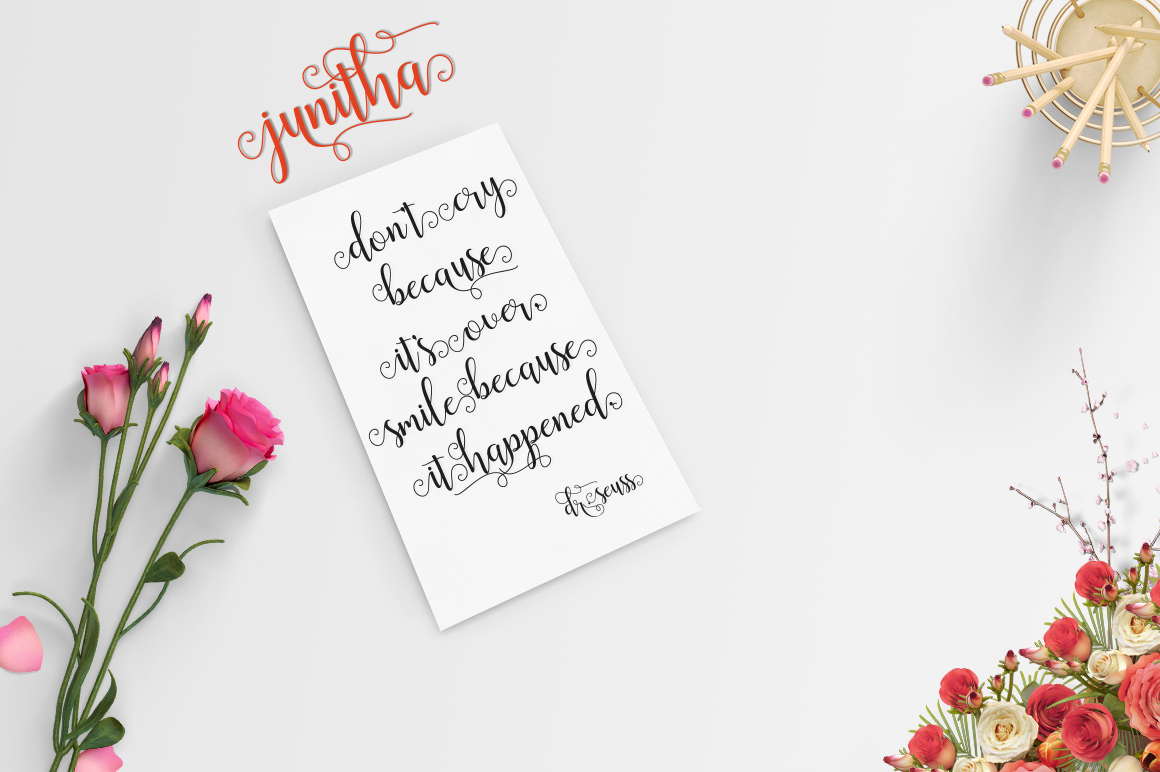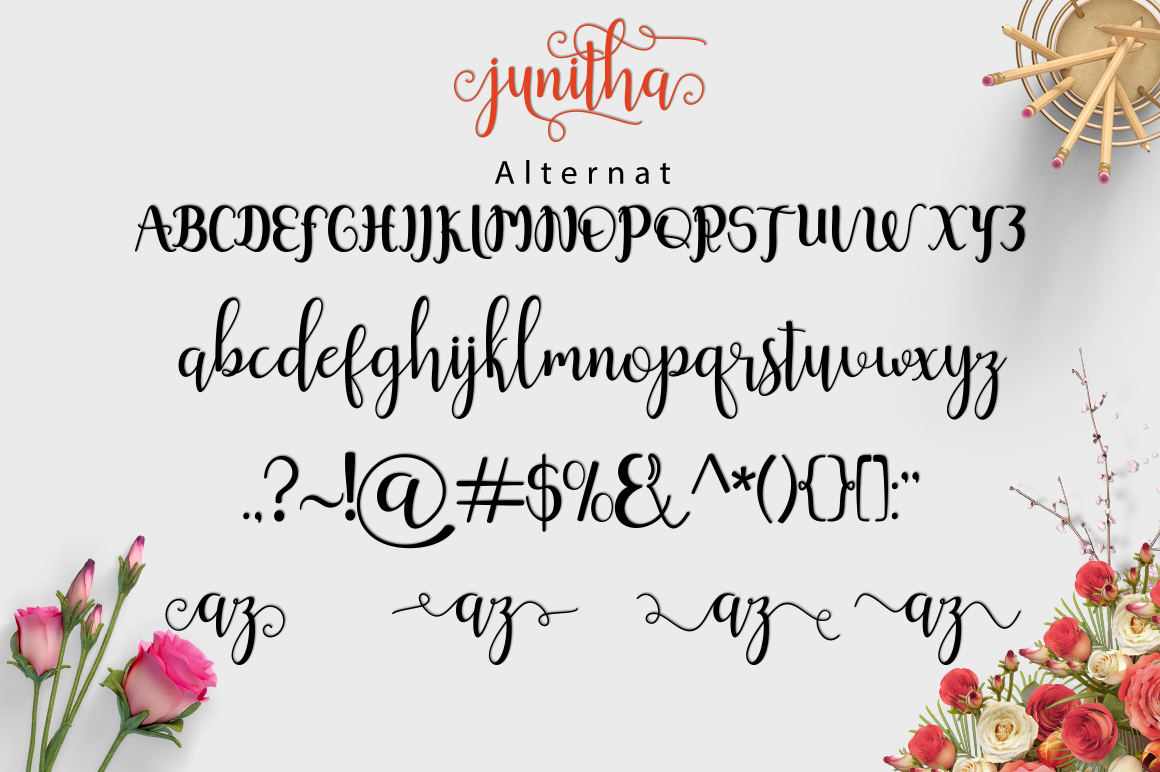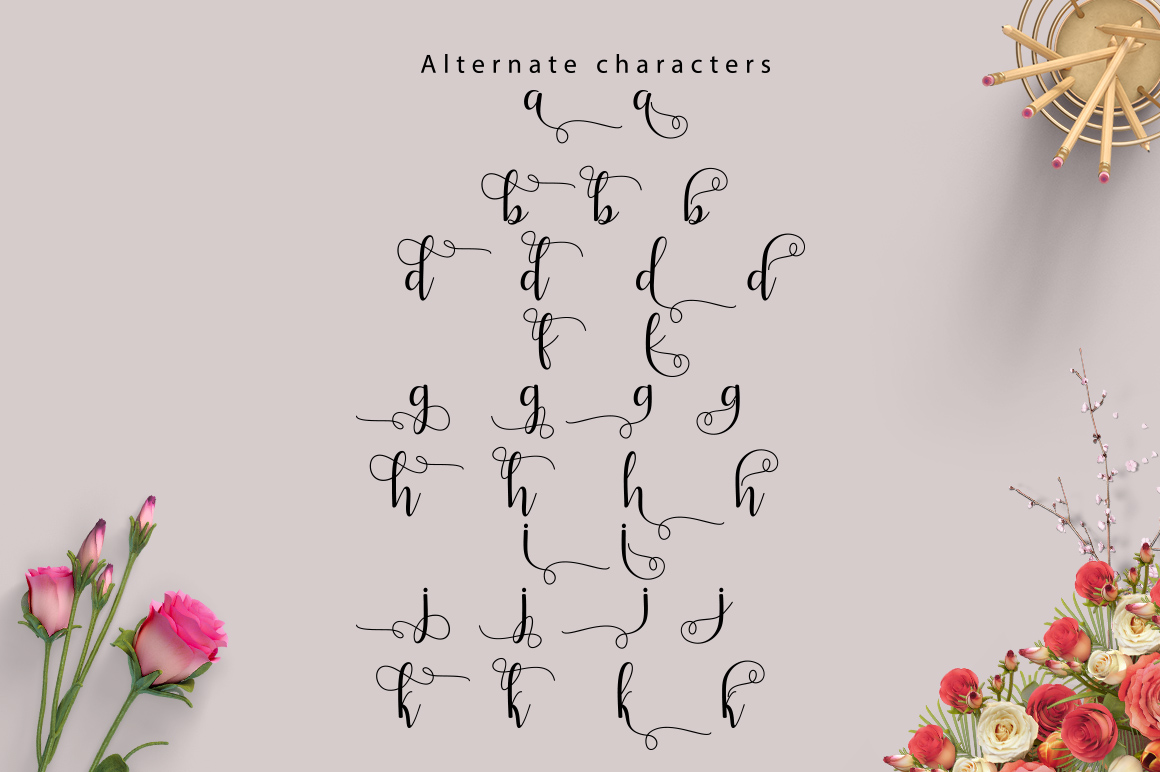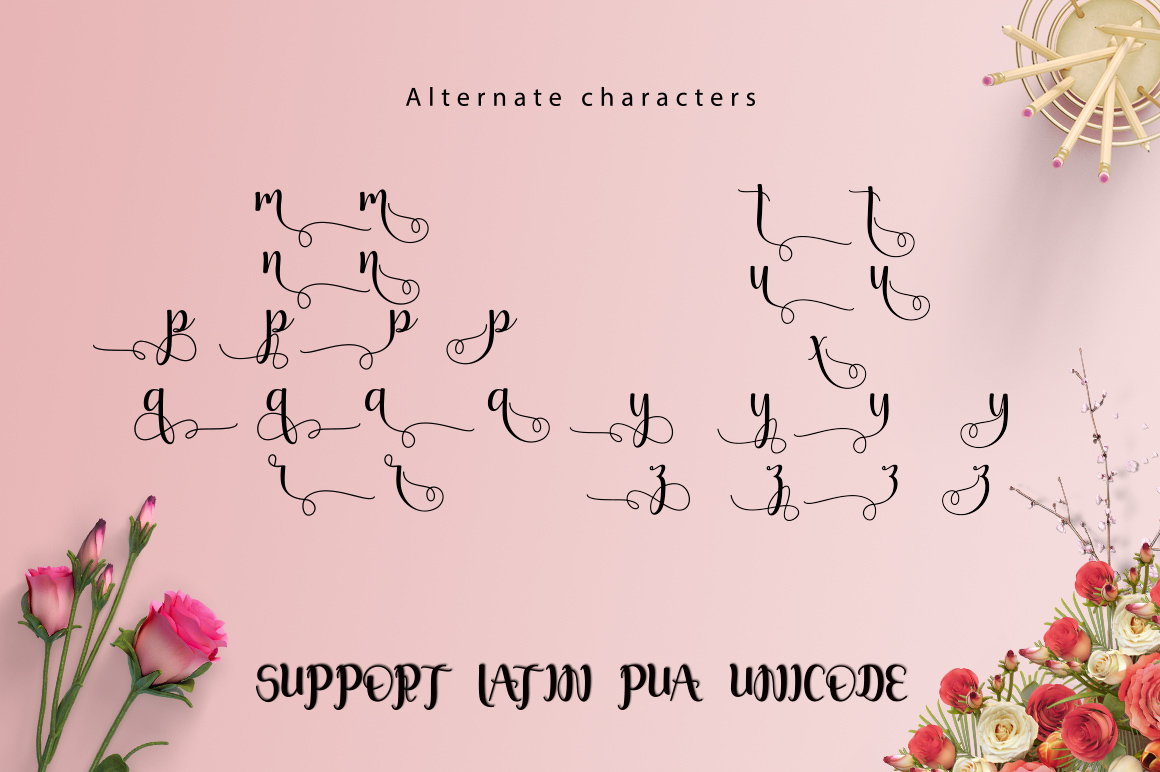
Junitha Script
Junitha Script a new fresh & modern script with a handmade calligraphy style, decorative characters and a dancing baseline! So beautiful on invitation like greeting cards, branding materials, business cards, quotes, posters, and more!!